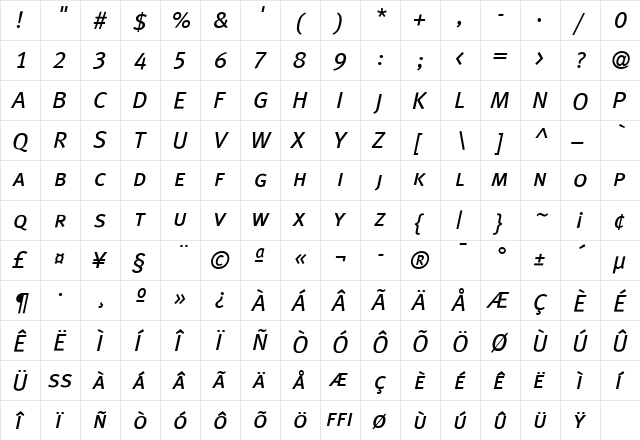
MetaPlus Italic
Design Context for MetaPlus Typeface
MetaPlus offers clean, dependable letterforms without strong stylistic allegiance, making it a practical choice for designers who need flexibility. The dynamic lean of this cut emphasises speed and emphasis in any layout.
Pro Tip: Try MetaPlus for annotation and caption copy alongside an upright companion — the contrast in angle creates a dynamic but ordered typographic system.